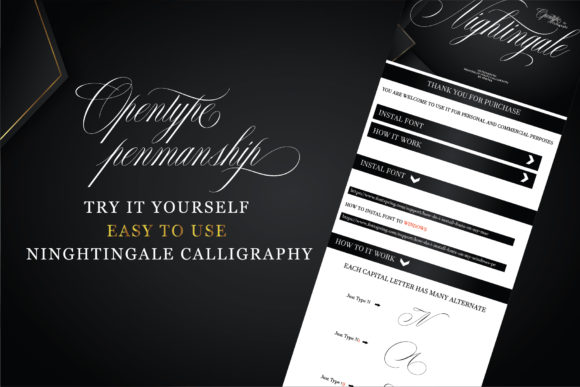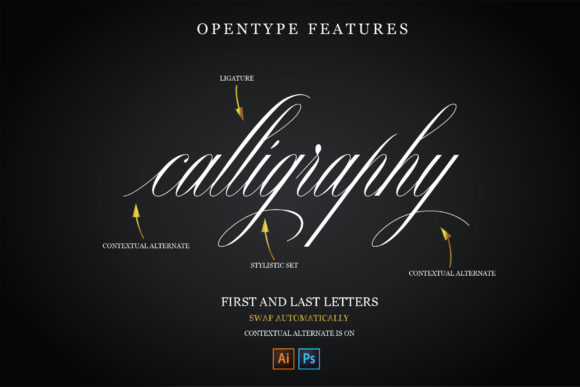
Nightingale Font
db-ku.com - Script & Handwritten -- Nightingale is a unique and elegant handwritten font. Use it to make your ideas even more realistic and create spectacular designs!